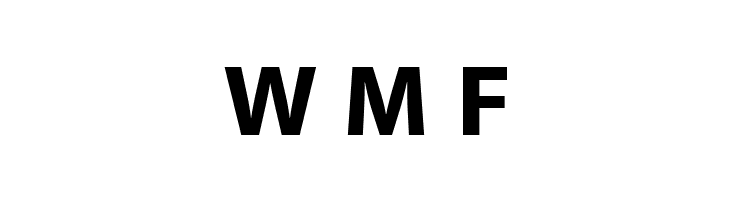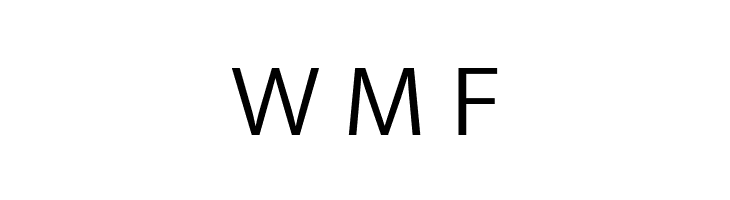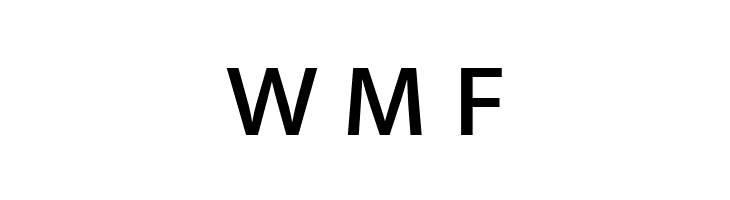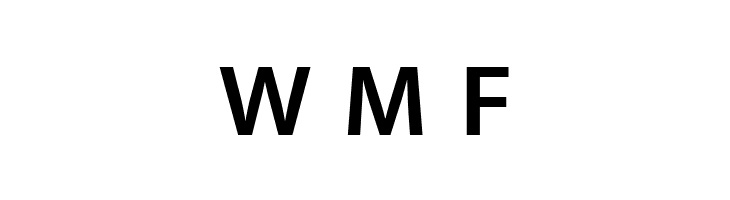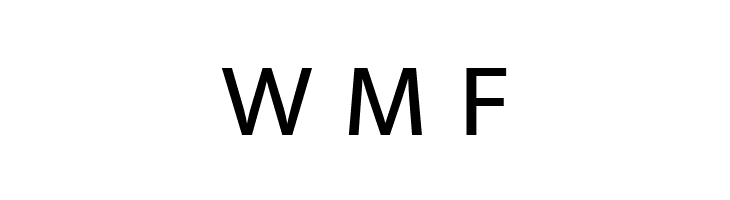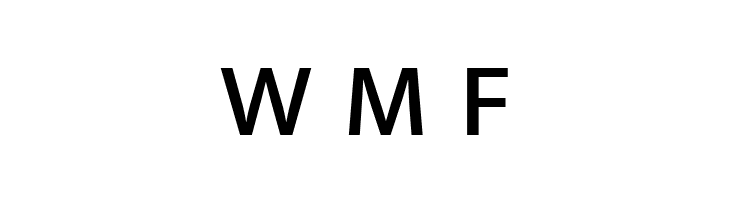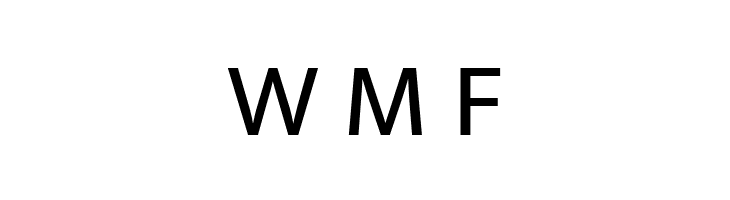
Ek Mukta ExtraBold Font
A bold, modern sans-serif font with clean lines and strong visual impact.
Ek Mukta Bold Font
A bold, modern sans-serif font with clean lines and strong readability.
Ek Mukta SemiBold Font
A modern, semi-bold sans-serif font with clean lines and excellent readability.
Ek Mukta Regular Font
A modern, clean sans-serif font with geometric shapes and excellent readability.
Ek Mukta Medium Font
A modern, geometric sans-serif font with excellent readability.
Mukta Mahee Bold Font
A bold, modern sans-serif font with excellent legibility and versatility.
Mukta Mahee Regular Font
A modern sans-serif typeface with clean lines and balanced proportions.
Mukta ExtraBold Font
A bold, modern sans-serif font with thick strokes and a strong presence.
Mukta Mahee Medium Font
A clean, modern typeface with balanced proportions and excellent readability.
Ek Mukta Light Font
A modern, light sans-serif font with low contrast and excellent readability.
Mukta SemiBold Font
A modern, semi-bold sans-serif font with excellent legibility and balance.
Mukta Malar ExtraBold Font
A modern, extra bold sans-serif typeface with a strong, uniform appearance.
Mukta Vaani ExtraBold Font
Mukta Malar Regular Font
A modern sans-serif font with clean lines and balanced proportions.
Mukta Regular Font
A modern, clean sans-serif font with excellent readability and balance.
Ek Mukta ExtraLight Font
A clean, modern typeface with geometric influences and excellent readability.
Mukta Mahee SemiBold Font
A clean, modern sans-serif font with a semi-bold weight and balanced proportions.
Mukta Mahee ExtraBold Font
A modern, extra bold sans-serif typeface with clean lines and excellent readability.
Mukta Bold Font
A bold, modern sans-serif font with clean lines and excellent readability.
Mukta Malar Bold Font